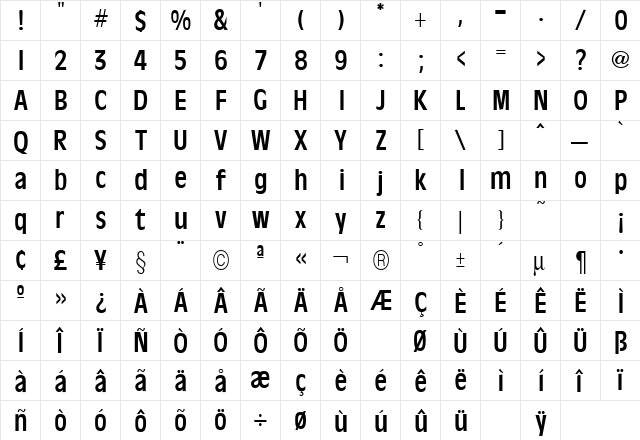
Olive Antique Narrow Regular
Design Context for Olive Antique Narrow Typeface
Olive Antique Narrow wears its vintage influences proudly, with letterforms that recall mid-century signage, classic packaging, and nostalgia-driven design.
Font Pairing: Combine Olive Antique Narrow with a simple slab or neutral sans — period-accurate companions reinforce the vintage feel without competing for attention.
Pro Tip: Lean into Olive Antique Narrow's period character by pairing it with aged paper textures, muted colour palettes, and vintage illustration styles.